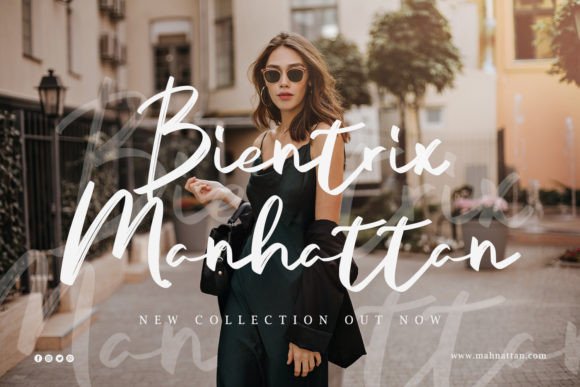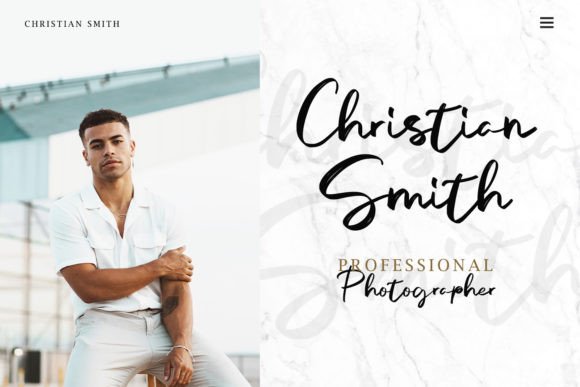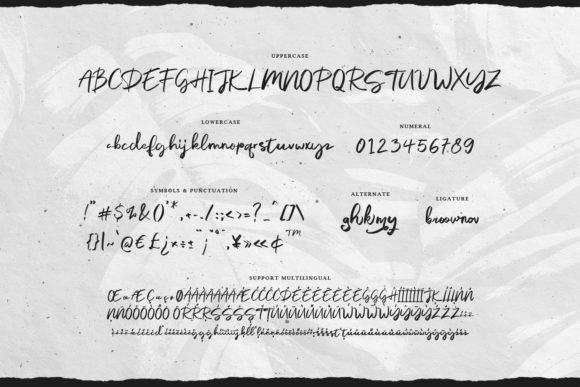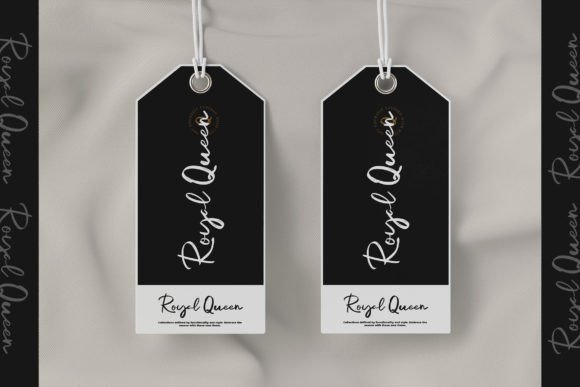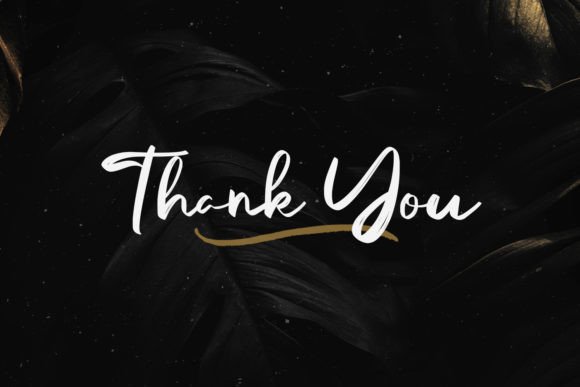
Introducing Delighta Font: The Ultimate Brush-Style Handwritten Font for Modern Designs
In the world of typography, fonts play a crucial role in bringing designs to life. Whether you’re a graphic designer, a crafty DIY enthusiast, or a digital artist, having the right font can make all the difference in creating visually stunning and engaging content. If you’re on the hunt for a cool and modern brush-style handwritten font that can elevate your designs, look no further than Delighta Font.
What is Delighta Font?
Delighta Font is a beautiful, brush-style handwritten font that exudes a sense of modernity and creativity. Its unique, fluid strokes and charming imperfections give it a personal touch that’s perfect for a wide range of design projects. From branding and advertising to packaging and digital media, Delighta Font is an incredibly versatile addition to any font library.
Why Choose Delighta Font?
So, what sets Delighta Font apart from other fonts in its class? Here are just a few reasons why designers and crafters alike will love this amazing font:
- Cool and Modern Aesthetic: Delighta Font boasts a fresh, contemporary look that’s sure to grab attention. Its modern brush-style strokes and clean lines make it perfect for designs that require a youthful and vibrant feel.
- Versatility: Whether you’re working on a logo, a poster, a website, or a social media graphic, Delighta Font adapts seamlessly to any design project. Its flexibility makes it an excellent choice for designers who need a font that can keep up with their creative vision.
- Elegant and Personal Touch: The imperfections and fluidity of Delighta Font give it a distinctly human feel that’s hard to replicate with more traditional fonts. This personal touch can add a layer of warmth and approachability to your designs, making them more relatable to your audience.
- Easy to Read: Despite its artistic nature, Delighta Font remains highly legible, even at smaller sizes. This makes it an excellent choice for body text, headlines, and titles, ensuring that your message is conveyed clearly and effectively.
How to Use Delighta Font in Your Designs
Delighta Font is incredibly easy to incorporate into your design workflow. Here are a few ideas to get you started:
- Branding and Logos: Use Delighta Font to create a unique and memorable brand identity. Its modern aesthetic and personal touch make it perfect for logos, business cards, and letterheads.
- Digital Media: Add a touch of personality to your social media graphics, blog posts, and website headers with Delighta Font. Its legibility and style make it an excellent choice for digital content.
- Print Materials: From posters and flyers to brochures and invitations, Delighta Font can elevate your print designs with its elegant and modern look.
- Crafting and DIY Projects: If you’re a crafty DIY enthusiast, Delighta Font can add a professional touch to your handmade projects, such as custom signs, labels, and cards.
In conclusion, Delighta Font is a game-changer for designers and crafters looking for a cool and modern brush-style handwritten font. Its versatility, elegance, and personal touch make it an invaluable asset to any font library. Whether you’re working on a professional design project or a personal DIY endeavor, Delighta Font is sure to inspire creativity and bring your designs to life.